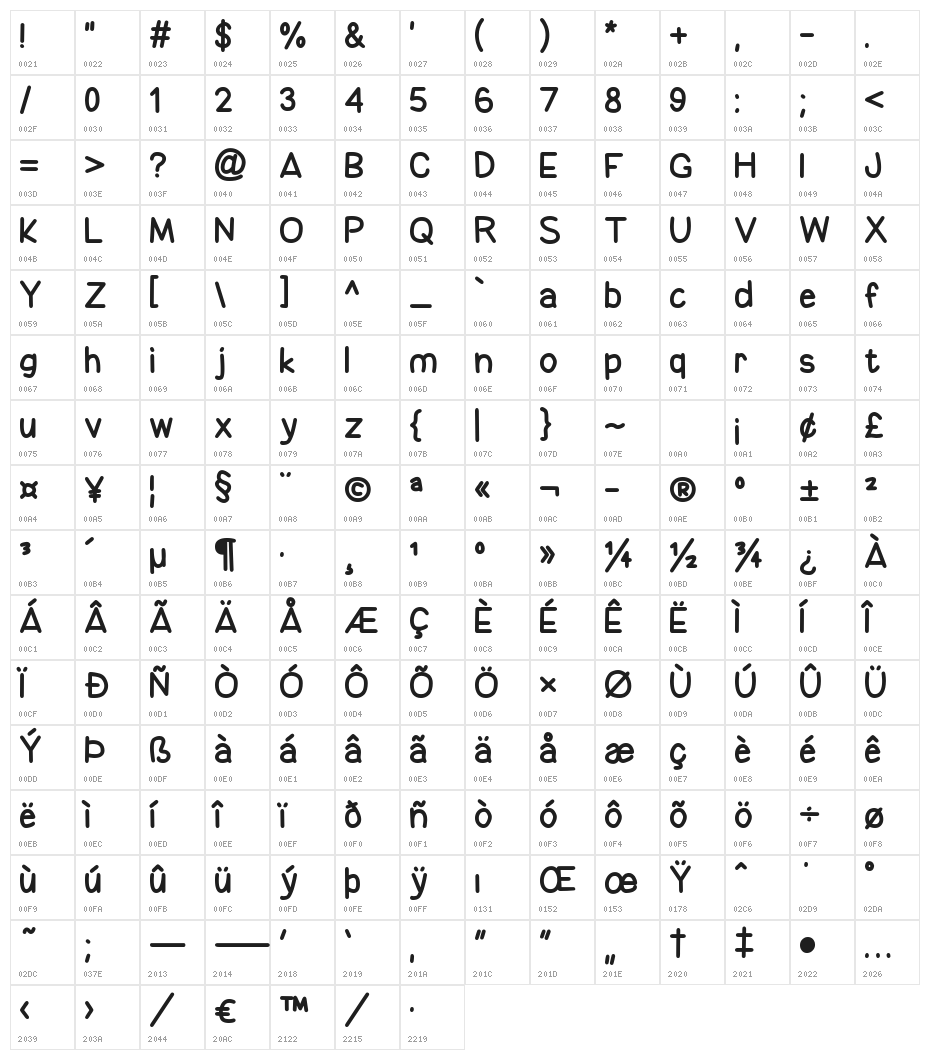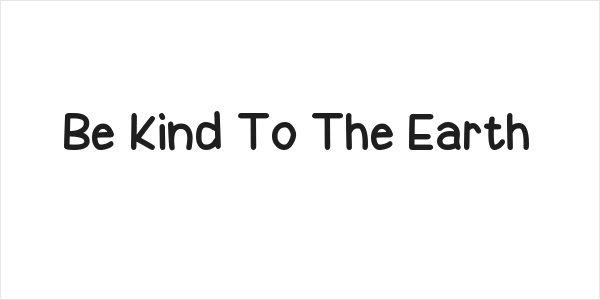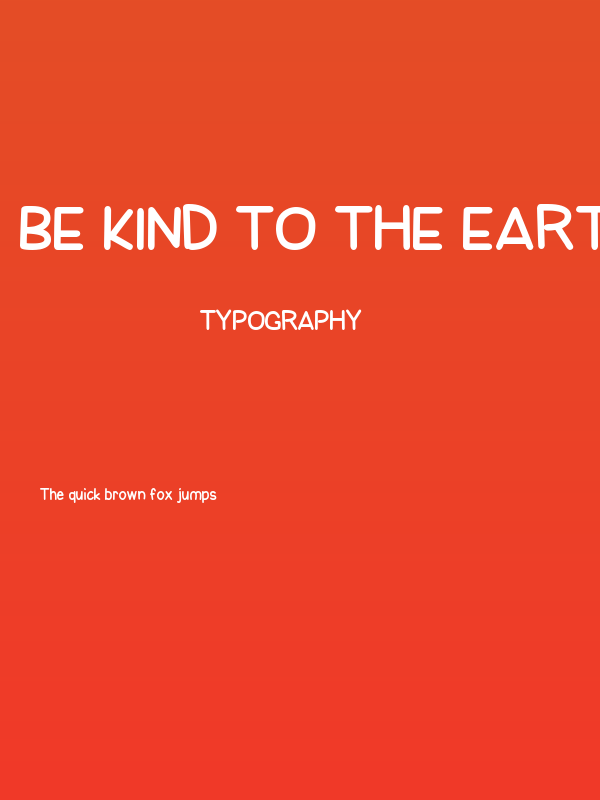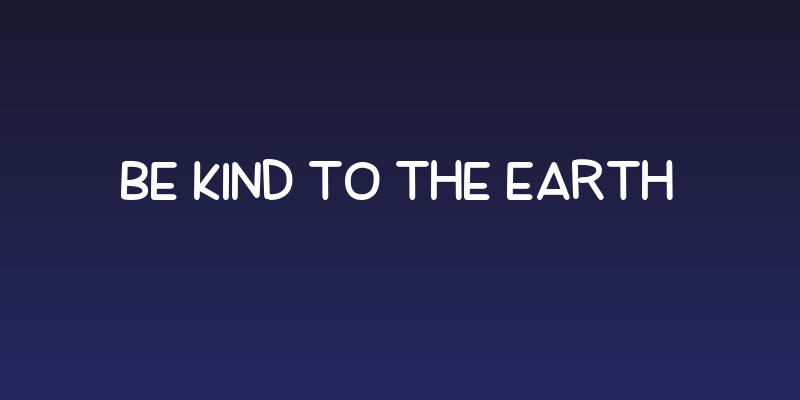
Be Kind To The Earth Font
Be Kind To The Earth Description
This font features a playful and rounded style, characterized by its smooth curves and friendly appearance. The letters are evenly spaced, with a consistent stroke width that gives it a uniform look. The uppercase and lowercase letters maintain a cohesive design, making it easy to read while retaining a whimsical charm. The numerals and special characters follow the same rounded aesthetic, ensuring a harmonious overall appearance. This font is versatile, suitable for both digital and print media, and can add a touch of warmth and approachability to any project.
| Proposed Projects | Ideal for children's books, educational materials, eco-friendly product packaging, and playful branding. |